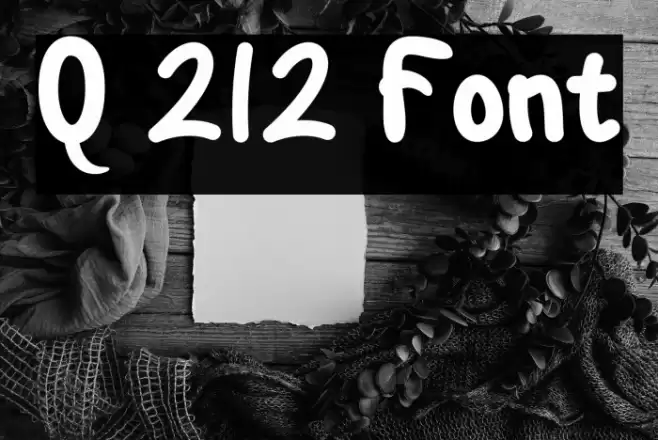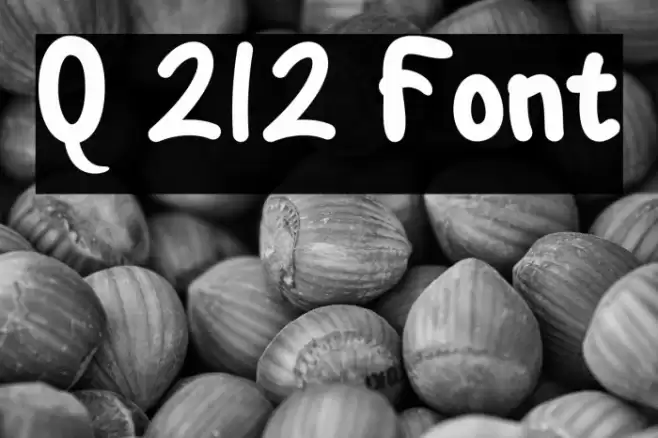
Q 212 Font
Q 212 Description
This font features a playful and bold design, characterized by its rounded and thick letterforms. The strokes are consistent in width, giving it a uniform appearance. The letters have a slightly informal and friendly feel, making it suitable for casual and fun applications. The uppercase and lowercase letters are well-proportioned, and the numerals are clear and easily distinguishable. Special characters are included, maintaining the same playful style. Overall, this font exudes a sense of warmth and approachability.
A playful, bold font with rounded, thick letterforms and a friendly feel from Regular fonts.
- Proposed Projects: Ideal for children's books, playful branding, casual invitations, and social media graphics.
- Overall Style: Playful